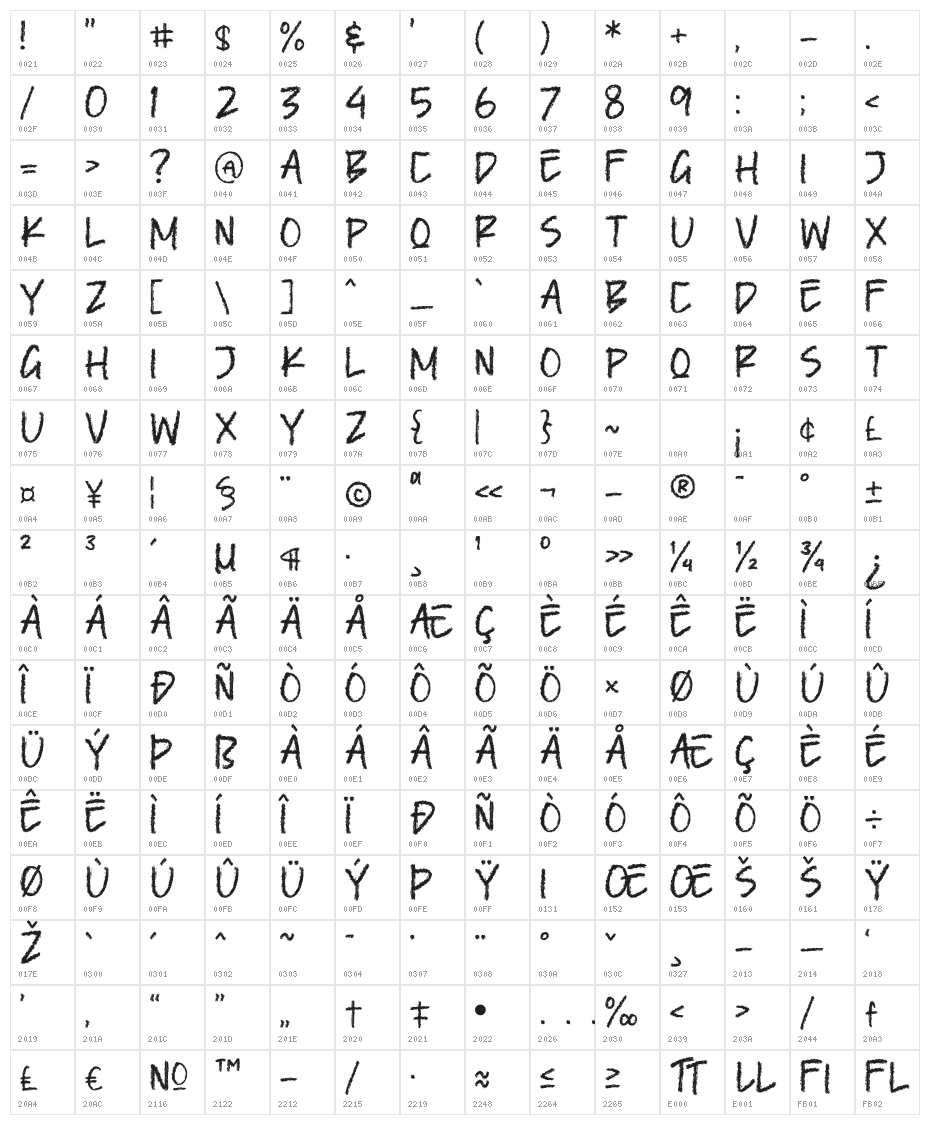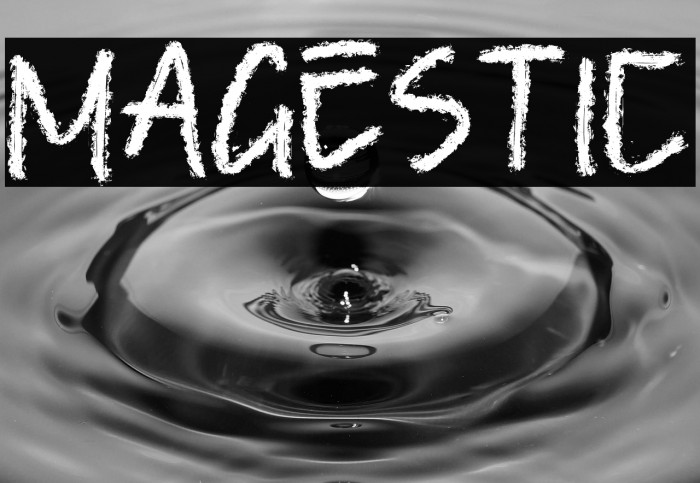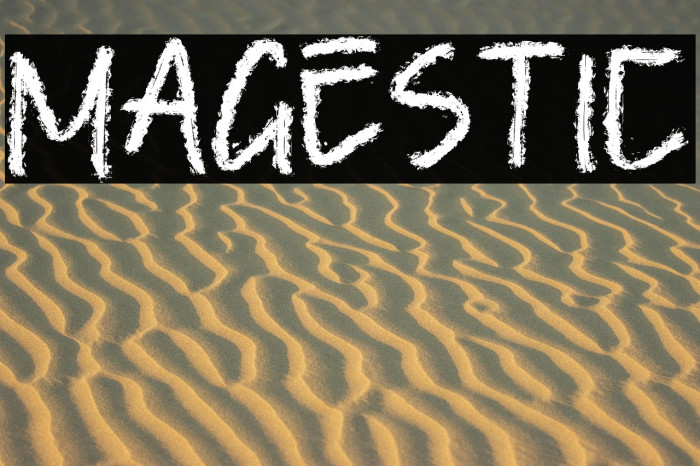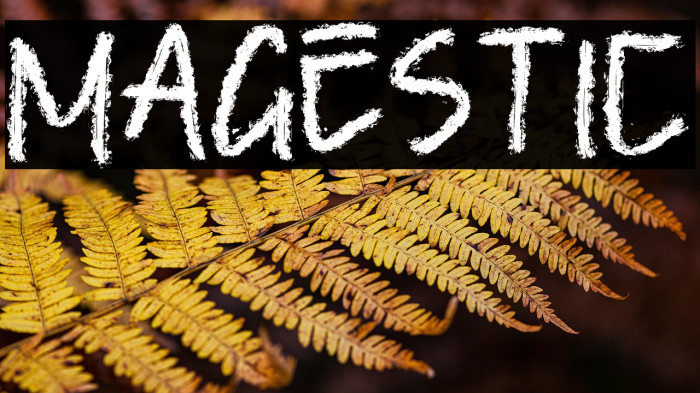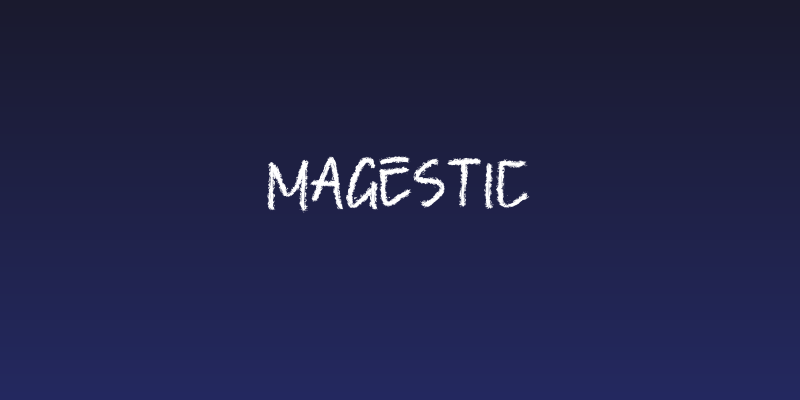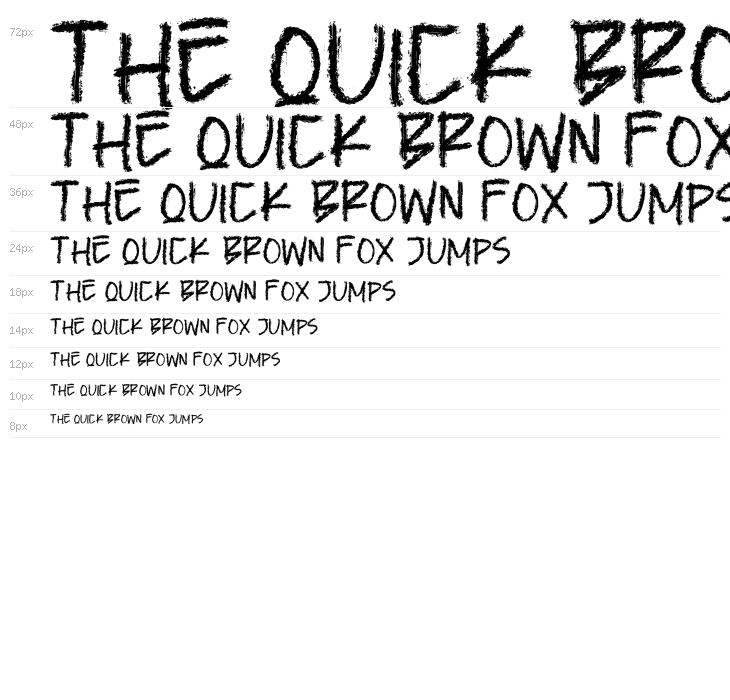
MAGESTIC Font
MAGESTIC Description
This font exudes a bold and expressive character with its rough, textured strokes that mimic a hand-drawn style. The uppercase and lowercase letters maintain a consistent, slightly irregular form that adds to its dynamic appearance. Numbers and special characters follow the same design, ensuring a cohesive look across all elements. The font's rugged texture gives it a raw, artistic feel, making it stand out in any design. Its unique style is perfect for projects that require a touch of creativity and individuality.
| Proposed Projects | Ideal for artistic posters, album covers, creative branding, and unique invitations. |